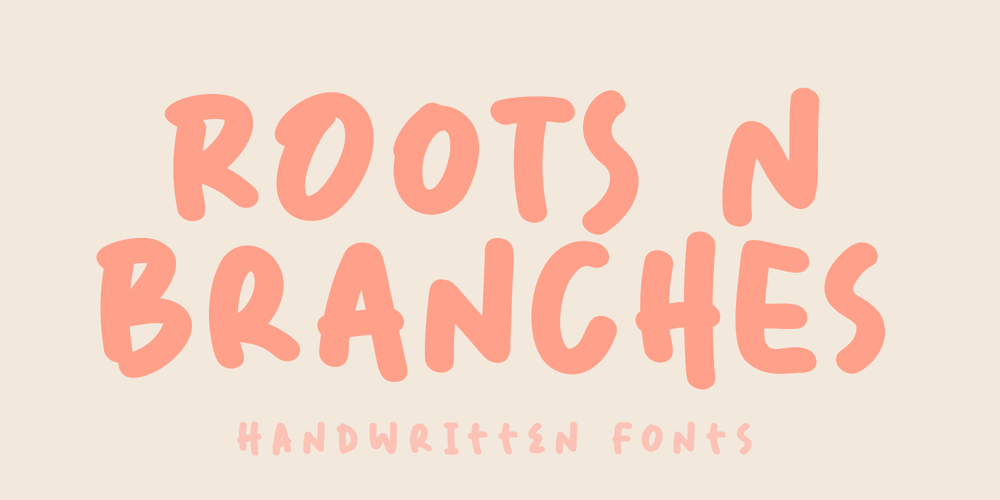
Roots N Branches Font Family was designed by Stefie Justprince and published by Crumphand. Roots N Branches contains 1 styles and family package options. Hello, Introduce the new font : Roots N Branches inspired by hipster life. Handmade fonts & Sharpie markerWhat’s Included Inside The Fonts ?UppercaseLowercaseSymbolsNumeralsEuropean MultilingualThank You, Regards!